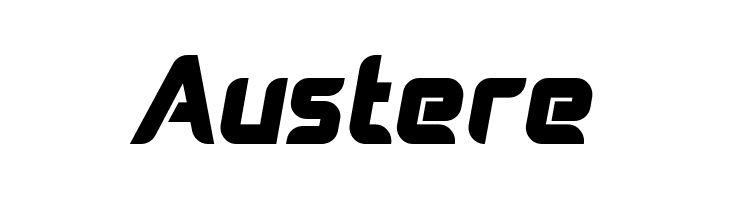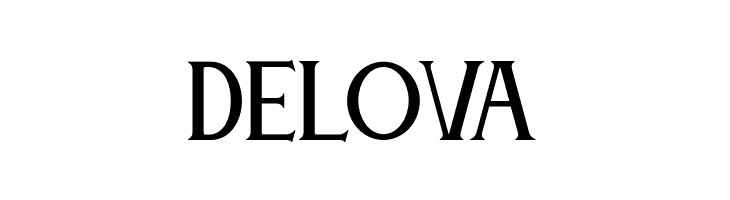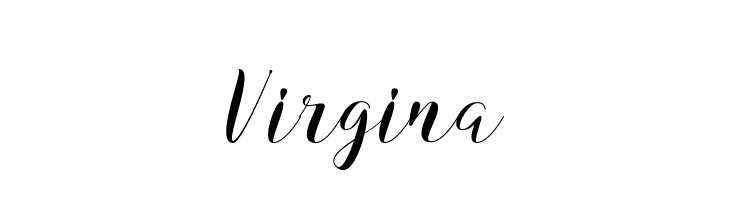
A classic serif font with elegant strokes and refined serifs.
A bold, high-contrast serif font with dramatic strokes and elegant serifs.
A bold, geometric font with sharp edges and a condensed, industrial style.
A classic serif font with elegant, sharp serifs and a sophisticated appearance.
A bold, expressive script font with elegant swashes and high contrast.
An elegant and sophisticated cursive font with ornate flourishes.
A dynamic, cursive script font with fluid, expressive strokes.
A bold, decorative font with intricate details and a strong presence.
A bold, dynamic brush script font with fluid, interconnected strokes.
A bold, dynamic font with a futuristic and sporty style.